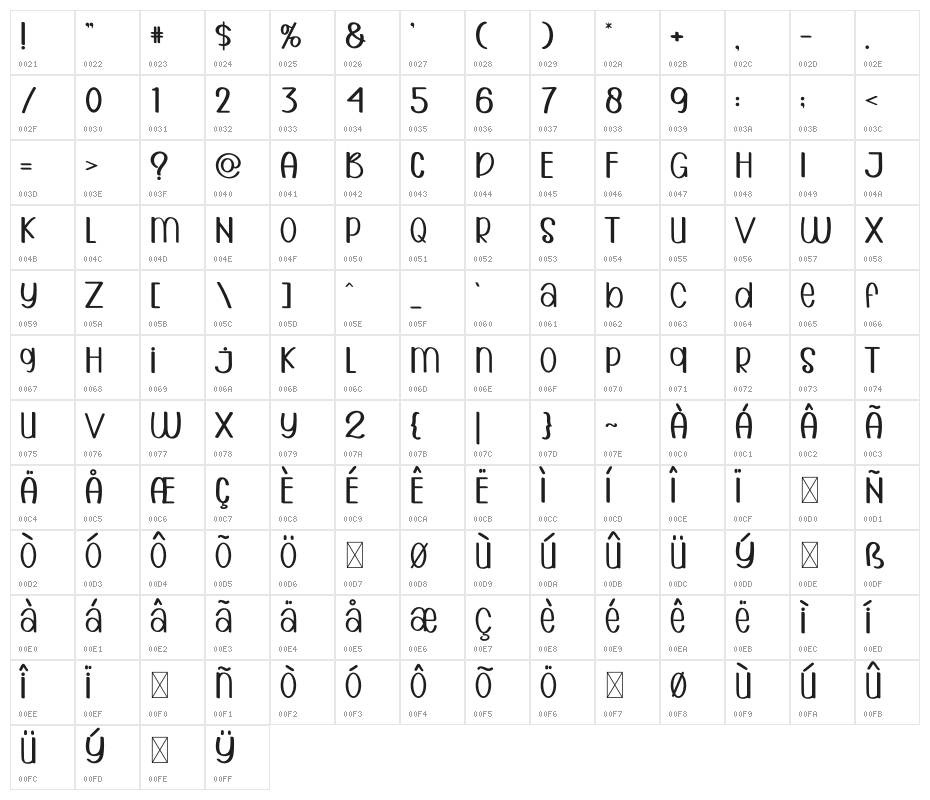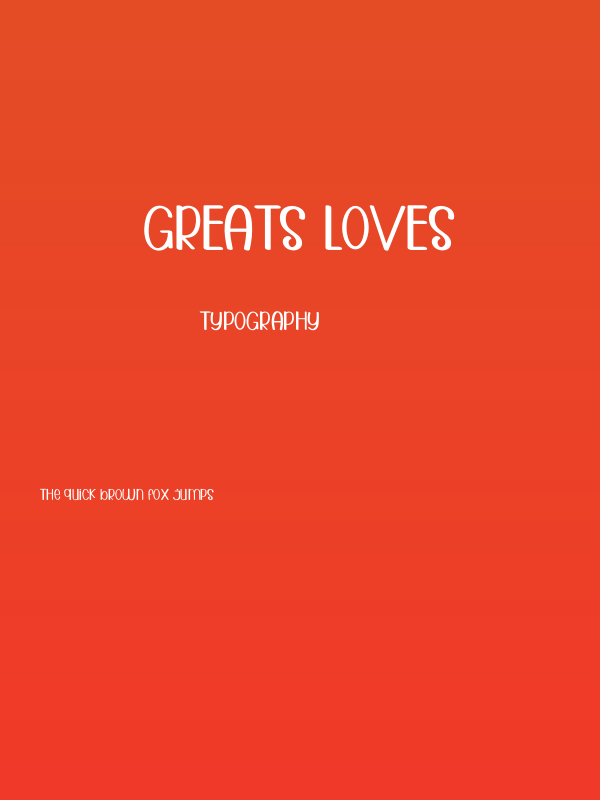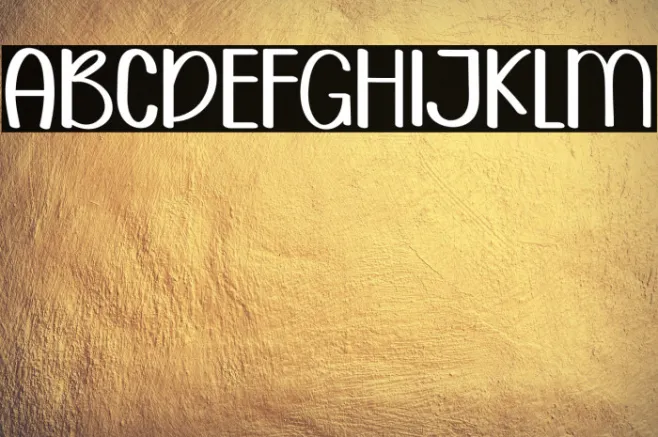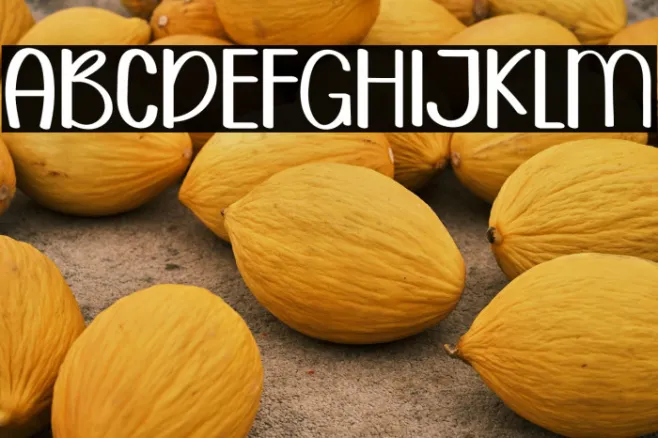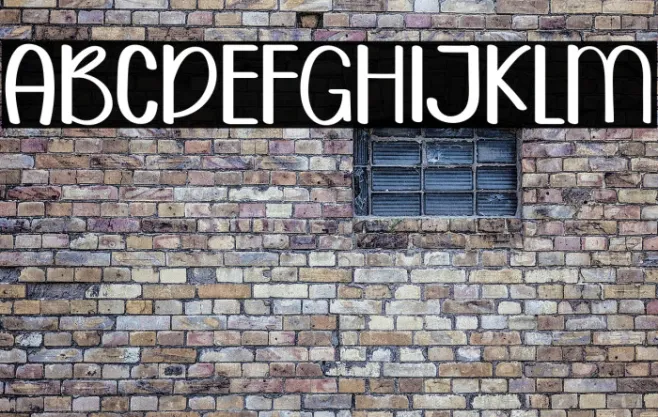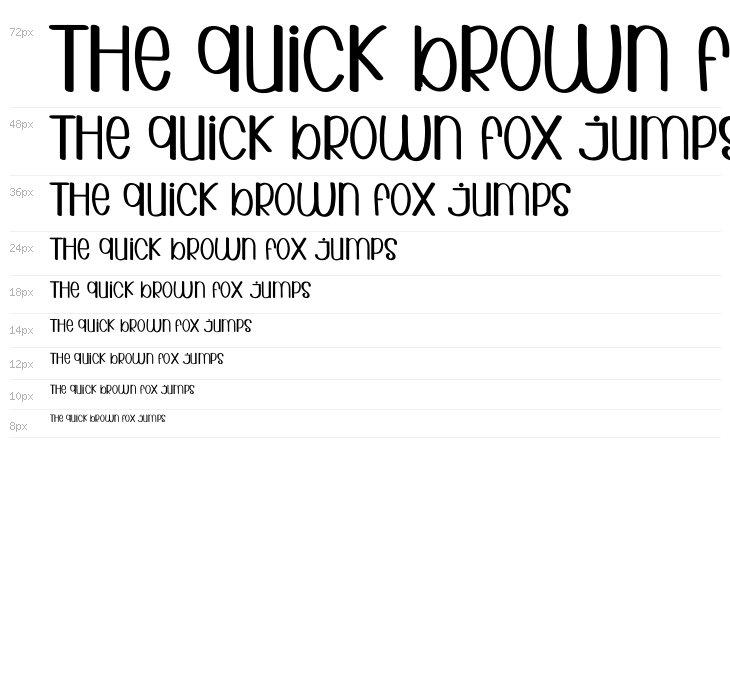
Greats Loves Font
Greats Loves Description
This font features a playful and rounded style with a unique blend of geometric and organic shapes. The uppercase letters are bold and slightly condensed, with a consistent stroke width that gives a harmonious appearance. The lowercase letters maintain the same playful character, with some letters like 'g' and 'y' having distinctive loops and curves. The numerals are clear and legible, matching the overall style of the alphabet. Special characters are well-integrated, maintaining the font's cohesive look. This font is ideal for projects that require a friendly and approachable feel, making it suitable for children's books, casual branding, and creative designs.
| Overall Style | Playful, Modern |
| Proposed Projects | Children's books, casual branding, creative design projects, playful invitations. |